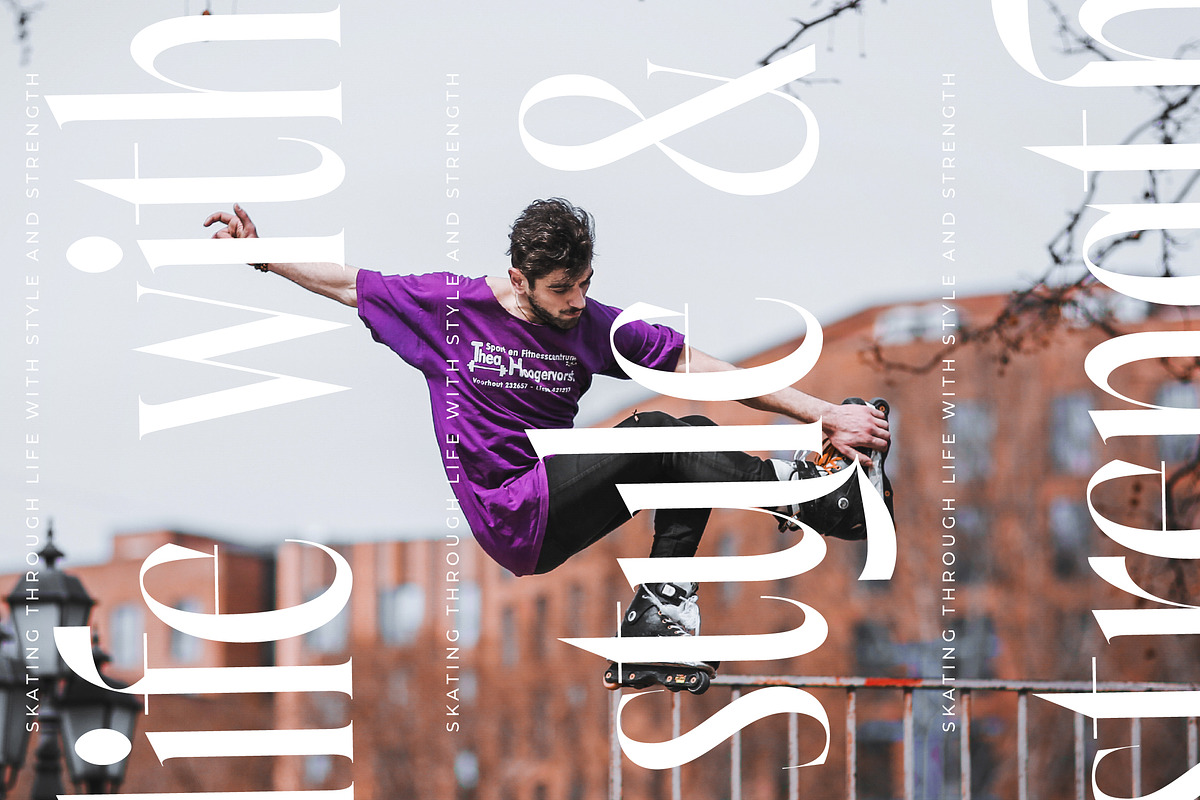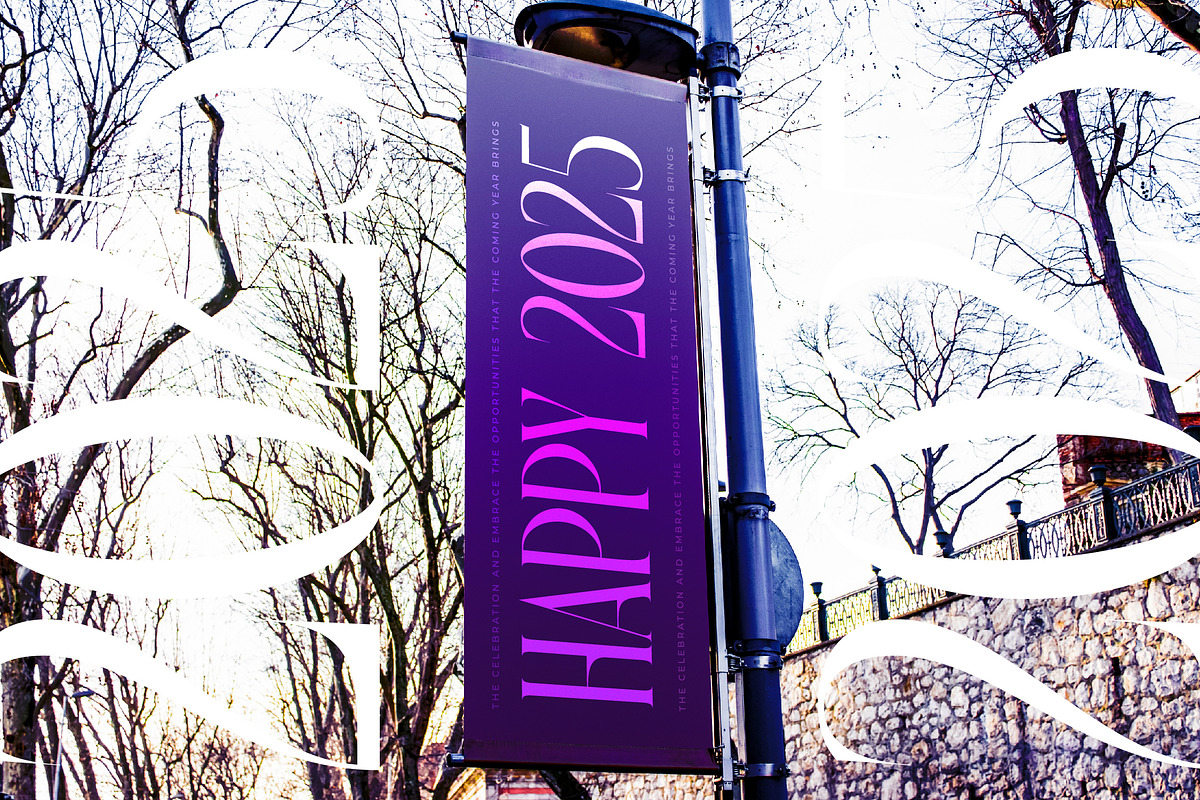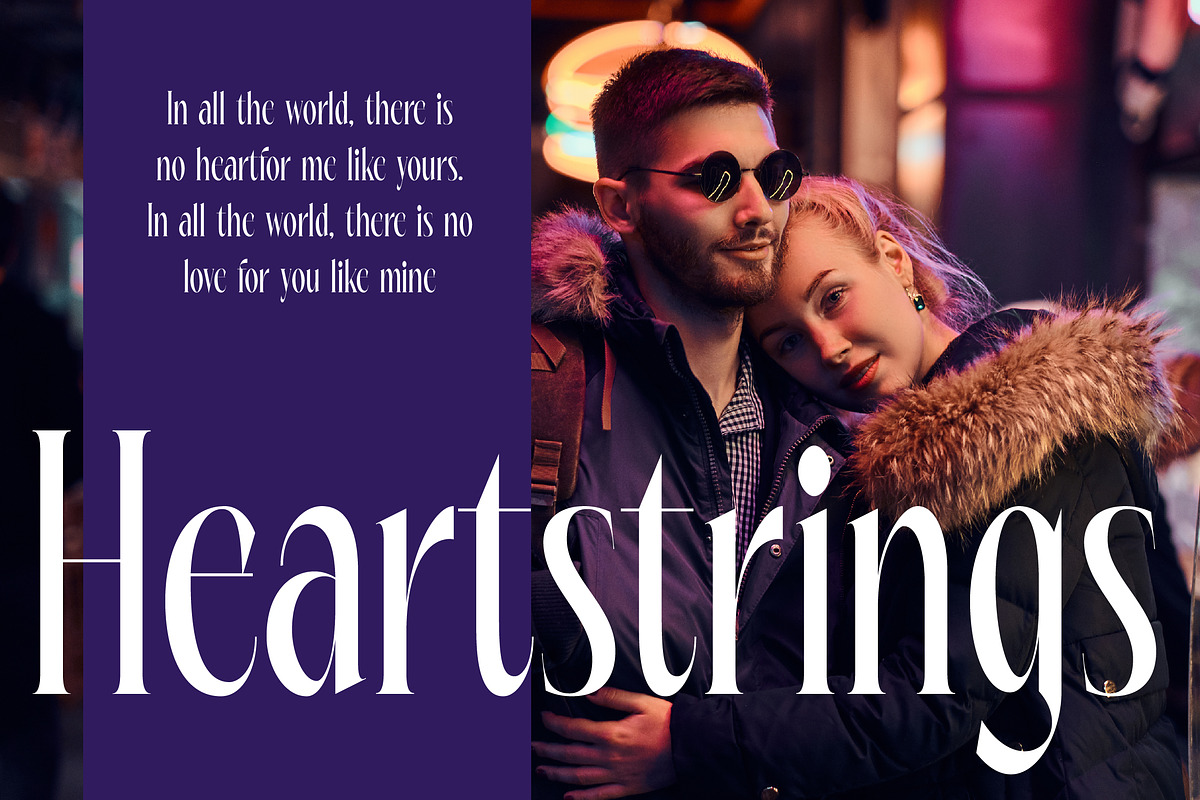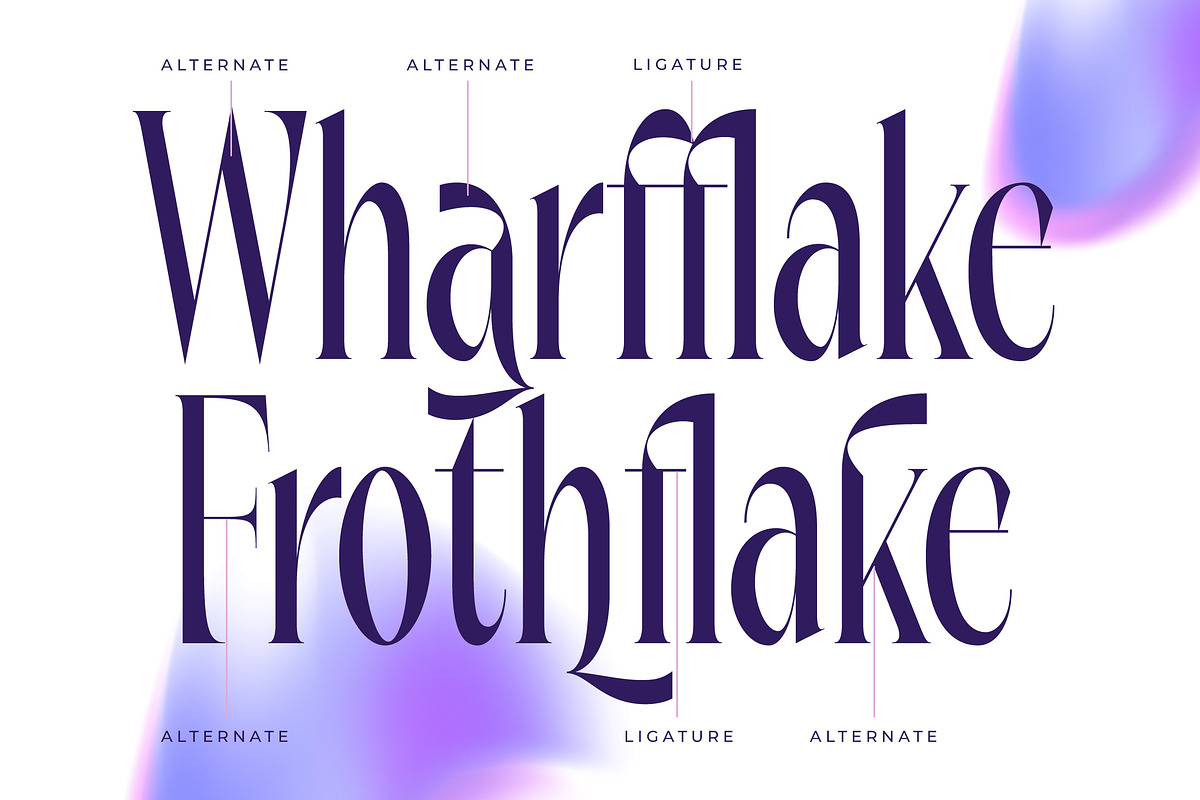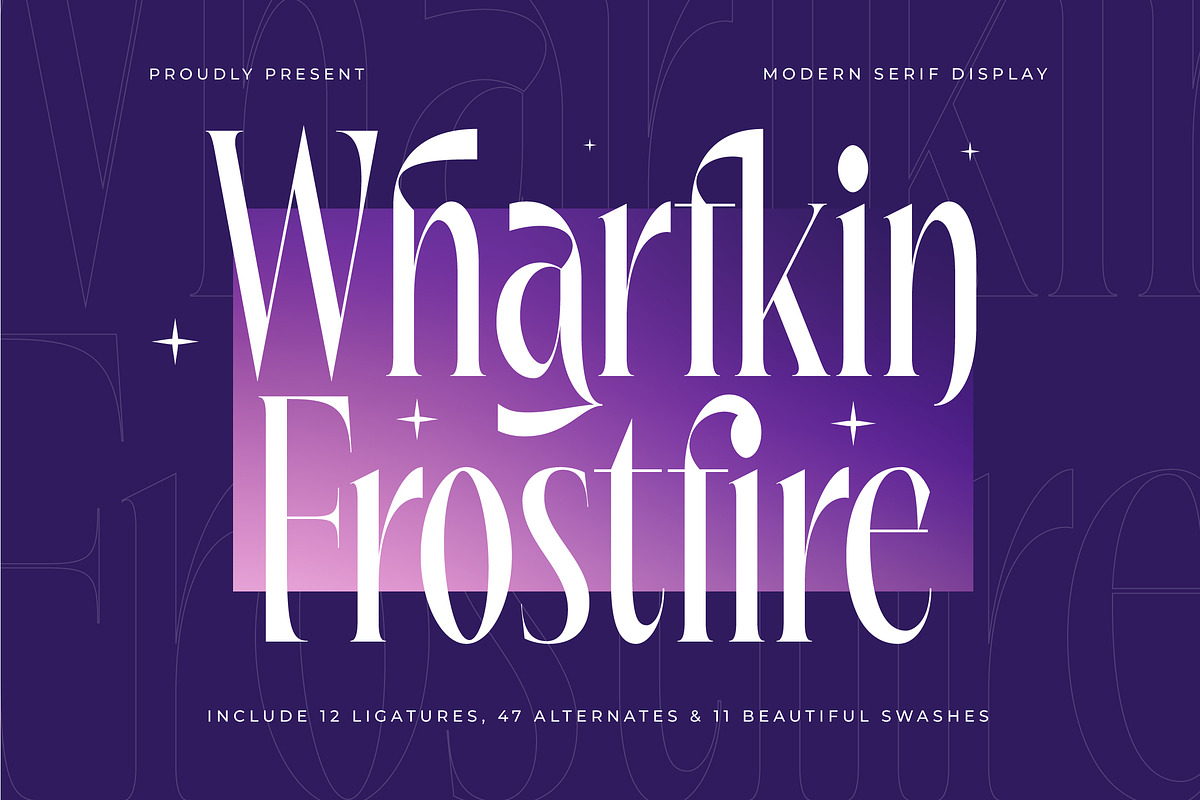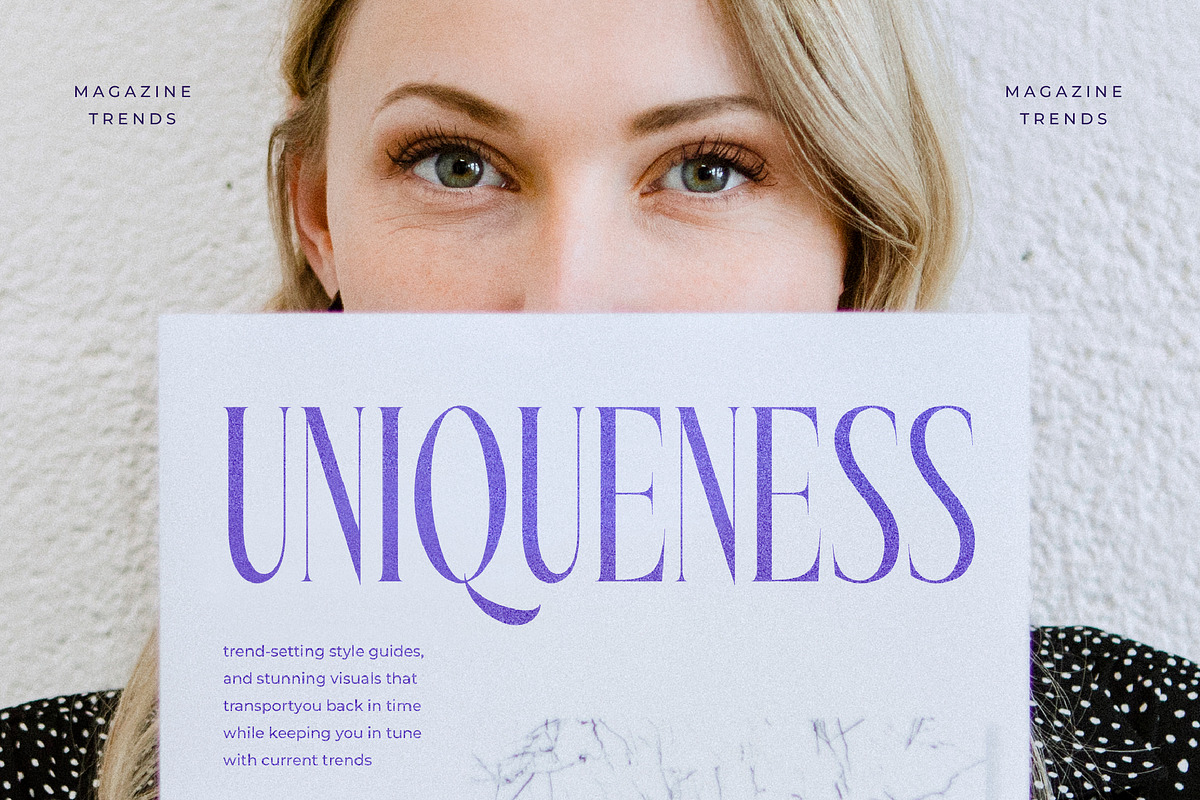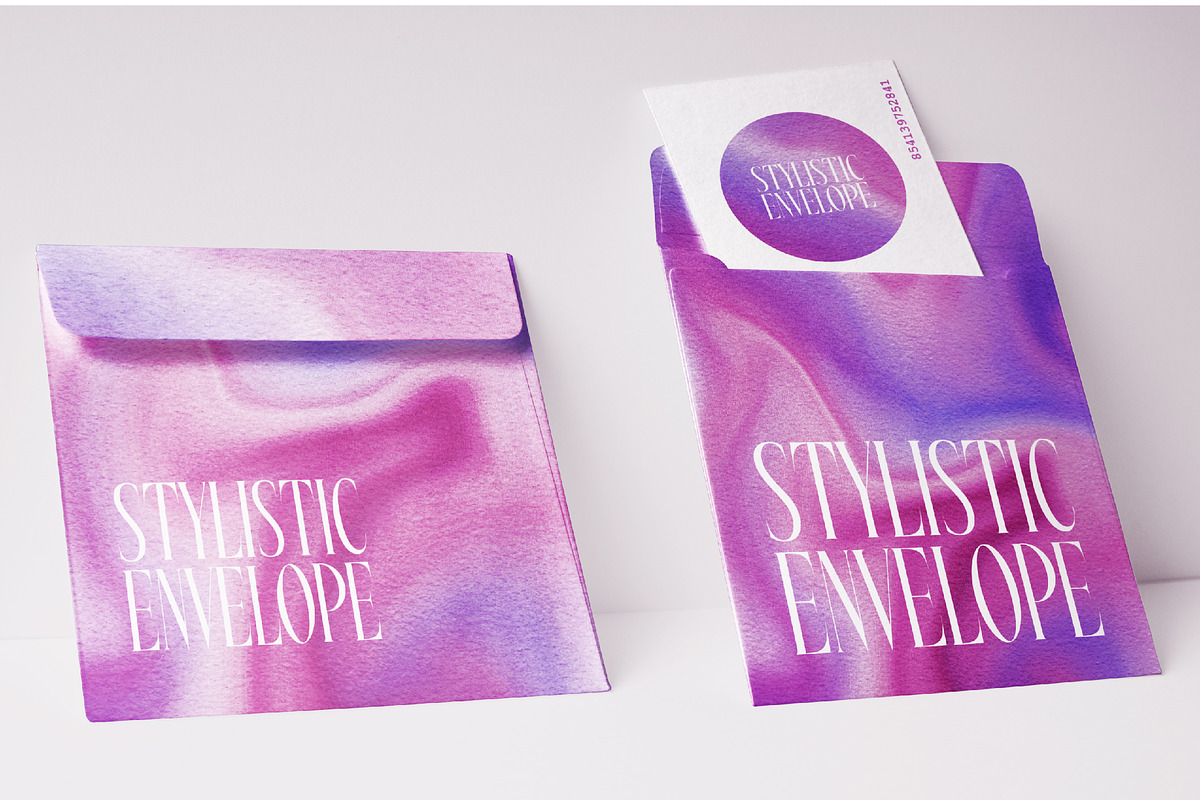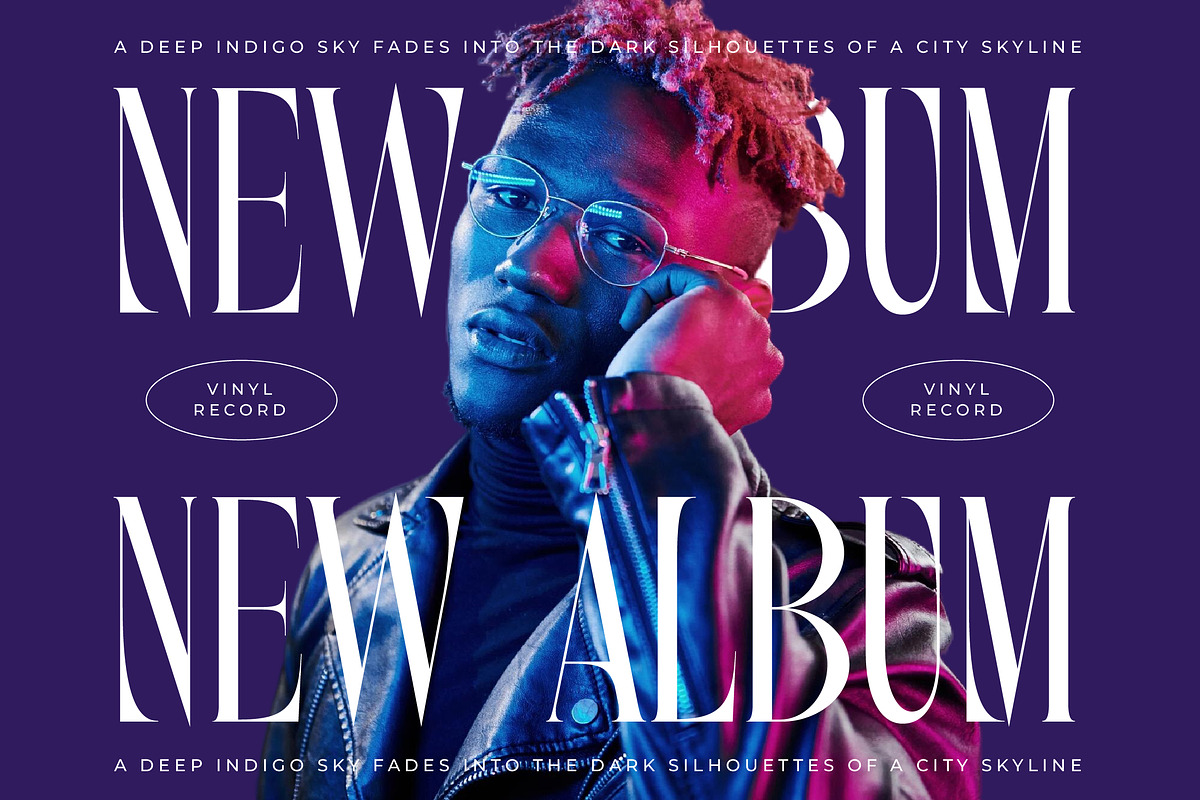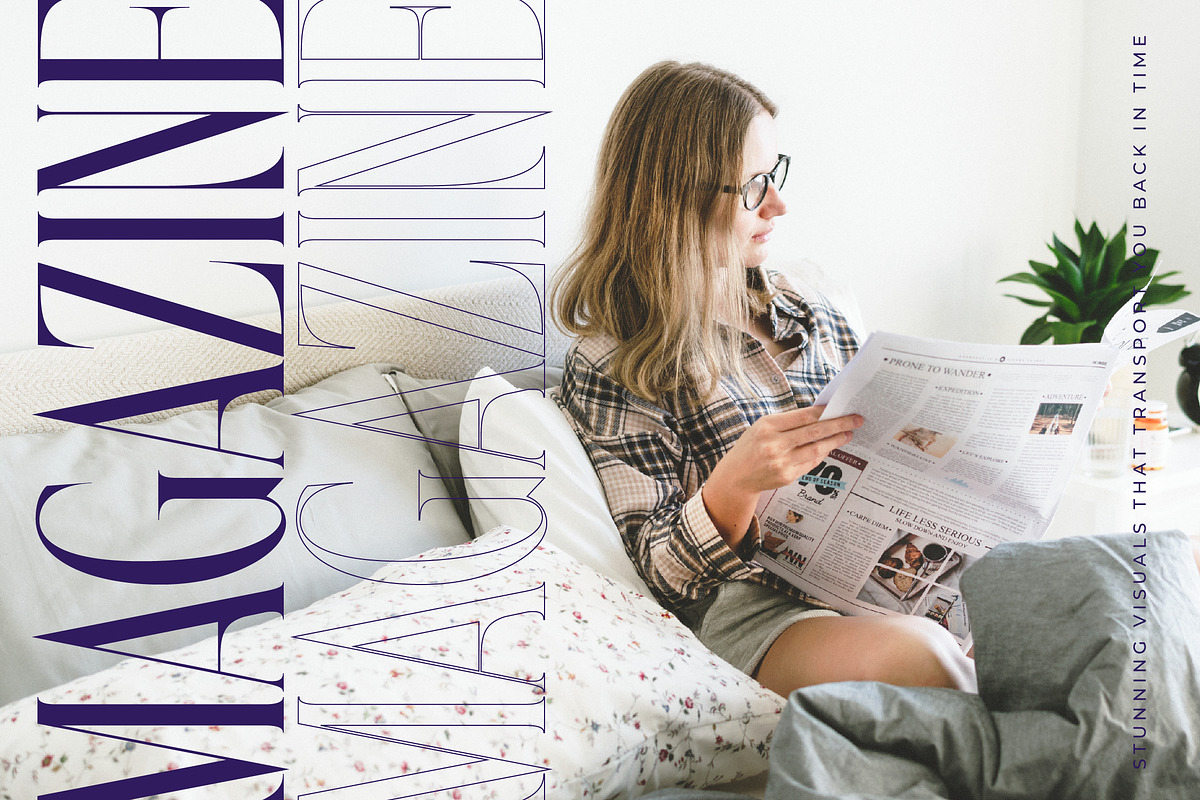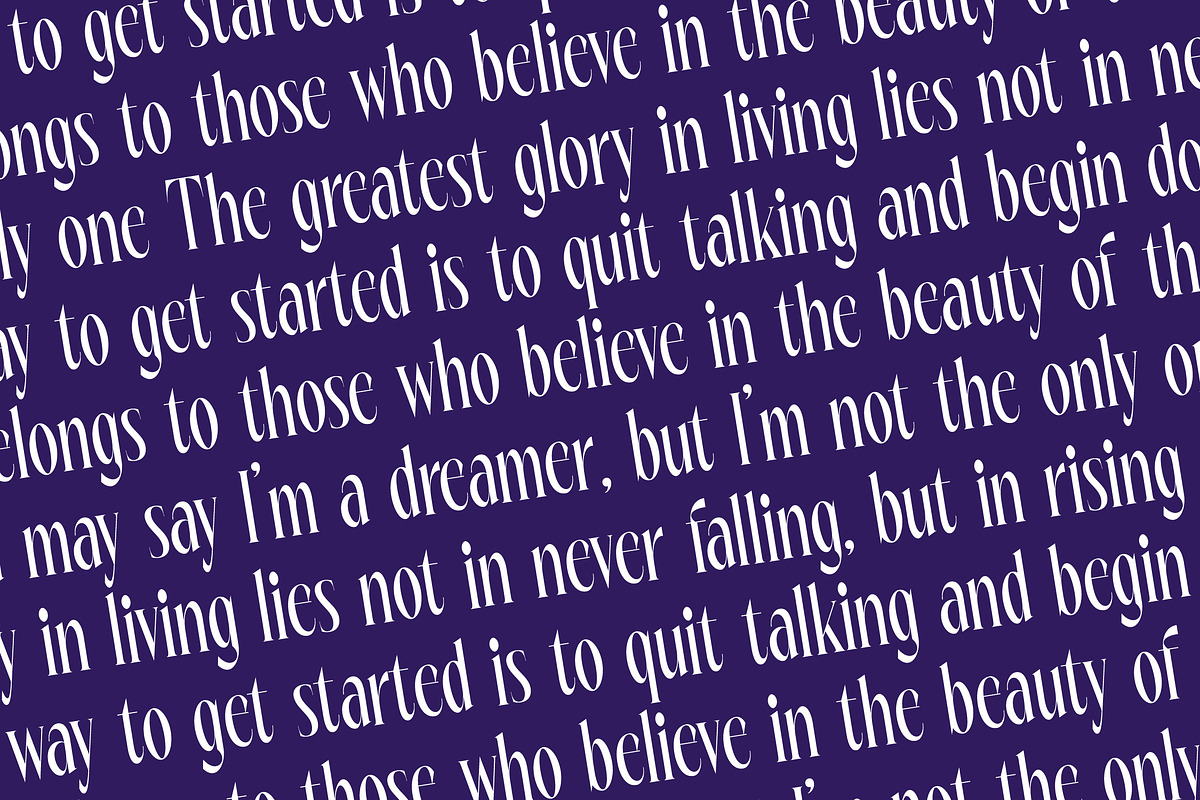
Wharfkin Frostfire Modern Serif Dont
Wharfkin Frostfire is an enchanting dance of light and shadow, capturing a sense of mystical elegance in every stroke. This display typeface invites you into a world where high fashion meets ancient storytelling through its elongated forms.
Inspired by the celestial glow of a winter night and the intricate ironwork of the Art Nouveau movement, this font bridges the gap between classic craftsmanship and contemporary flair. It carries the weight of a legacy while feeling entirely new, ethereal, and magical.
With its tall, slender proportions and sharp, delicate terminals, this modern serif display is designed for maximum branding impact. It exudes a sense of luxury typography and high-contrast serif sophistication that demands attention without raising its voice, making it the ultimate editorial font.
As the modern serif trend continues to dominate high-end aesthetics, this typeface stands out as a leader in character-driven typography. It perfectly aligns with the current wave of editorial display fonts that prioritize unique personality over generic utility for a memorable brand identity.
Designers will find endless inspiration when using this for high-end logo design, sophisticated branding, and avant-garde editorial layouts. It is equally at home on luxury packaging, romantic wedding stationery, or within the fast-paced world of fashion magazine spreads and digital covers.
This comprehensive toolkit includes a rich set of ligatures, alternates, and swashes that allow for custom typographic flourishes in every headline. Full multilingual support and international characters ensure your message resonates globally with premium precision and stylistic grace.